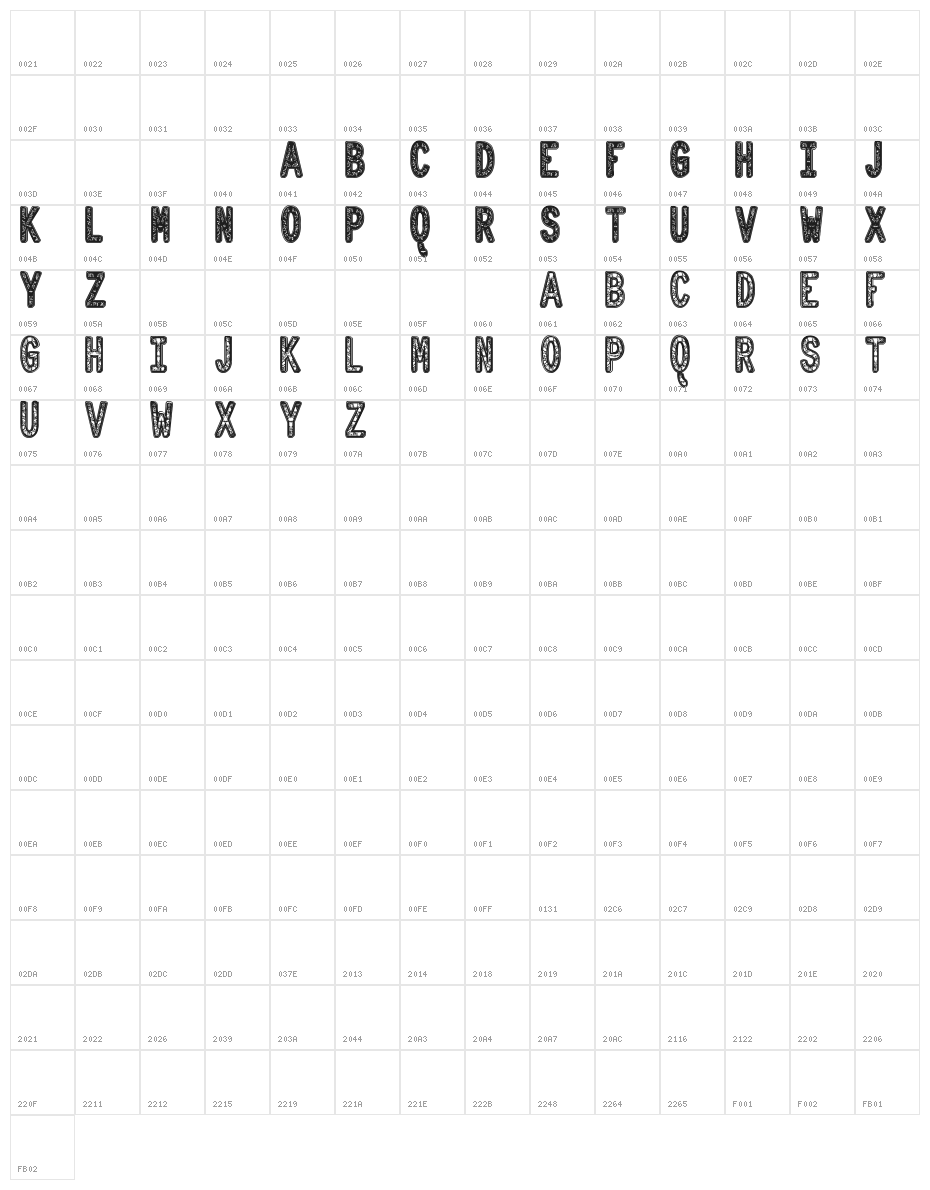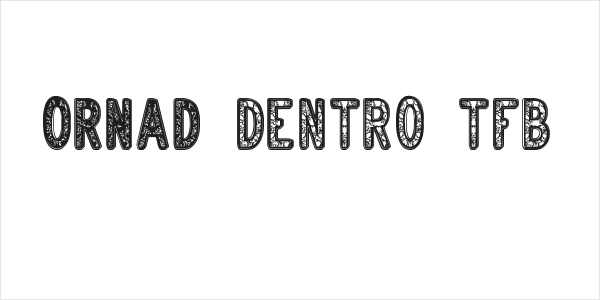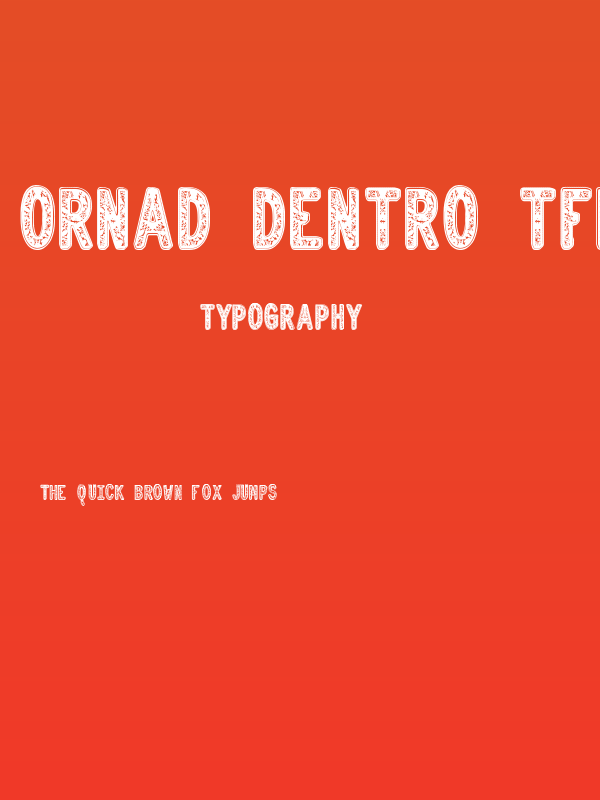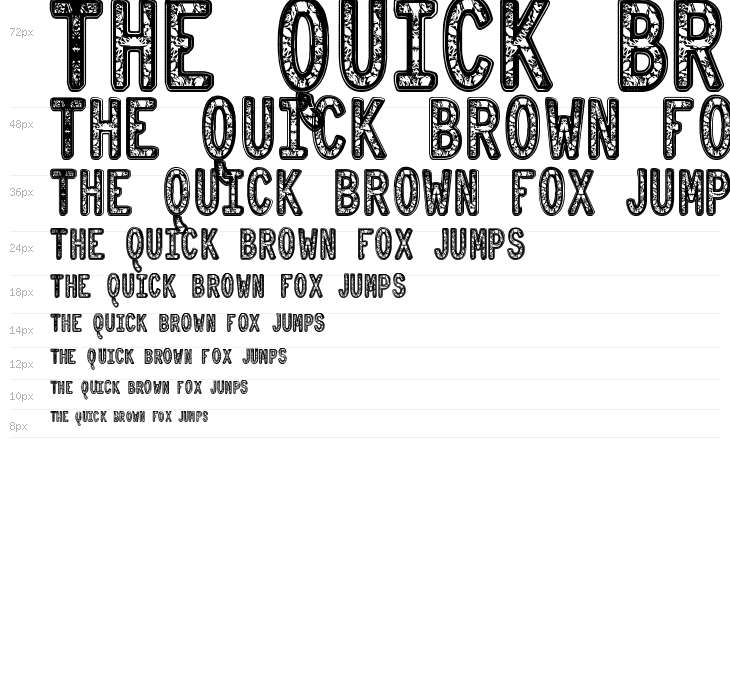
ORNAD dentro tfb Font
ORNAD dentro tfb Description
This font features a bold, decorative style with a distressed texture that gives it a vintage and rugged appearance. The uppercase letters are prominently displayed, each character filled with intricate patterns that resemble a worn or weathered surface. The design is consistent across all letters, maintaining a uniform look that is both eye-catching and unique. The font's boldness and decorative elements make it suitable for projects that require a strong visual impact. Its distressed texture adds character and depth, making it ideal for designs that aim to evoke a sense of nostalgia or a handcrafted feel.
Overall StyleVintage
Proposed ProjectsIdeal for vintage-themed posters, logos, apparel designs, and branding materials that require a bold and textured appearance.